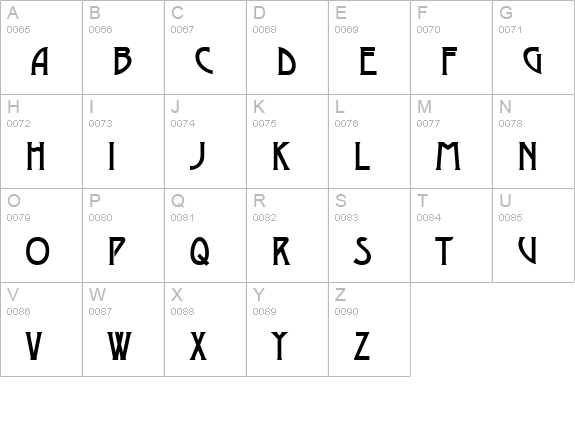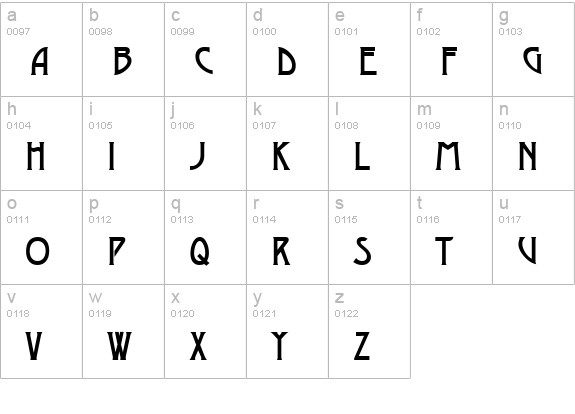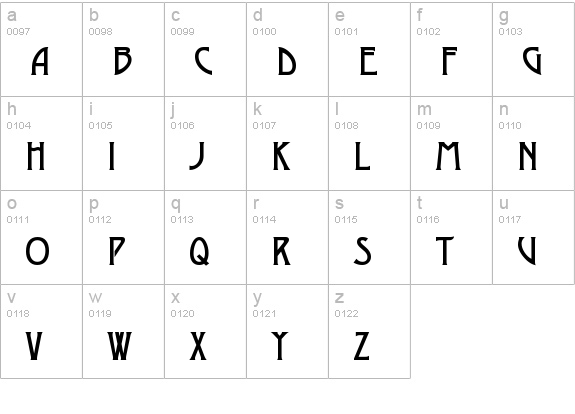
DustineSolid Regular Font Details
DustineSolid Regular is the standard, neutral variant in the DustineSolid typeface family \xE2\x80\x94 well suited to general body text, paragraphs, and standard typographic work.
DustineSolid Regular is a sleek and modern font that exudes elegance and sophistication. Its clean lines and balanced proportions make it perfect for a wide range of design projects, from branding to editorial design. The typeface is versatile and can easily adapt to different styles and themes. What makes DustineSolid Regular even more appealing is that it is available for free download at FontsMarket.com. This means that you can access this high-quality font without any cost, making it a valuable addition to your font collection. Whether you are a designer, a student, or anyone looking to enhance their creative projects, DustineSolid Regular is a fantastic choice that won't break the bank. Don't miss out on the opportunity to elevate your designs with DustineSolid Regular. Download it for free today and add a touch of sophistication to your projects.